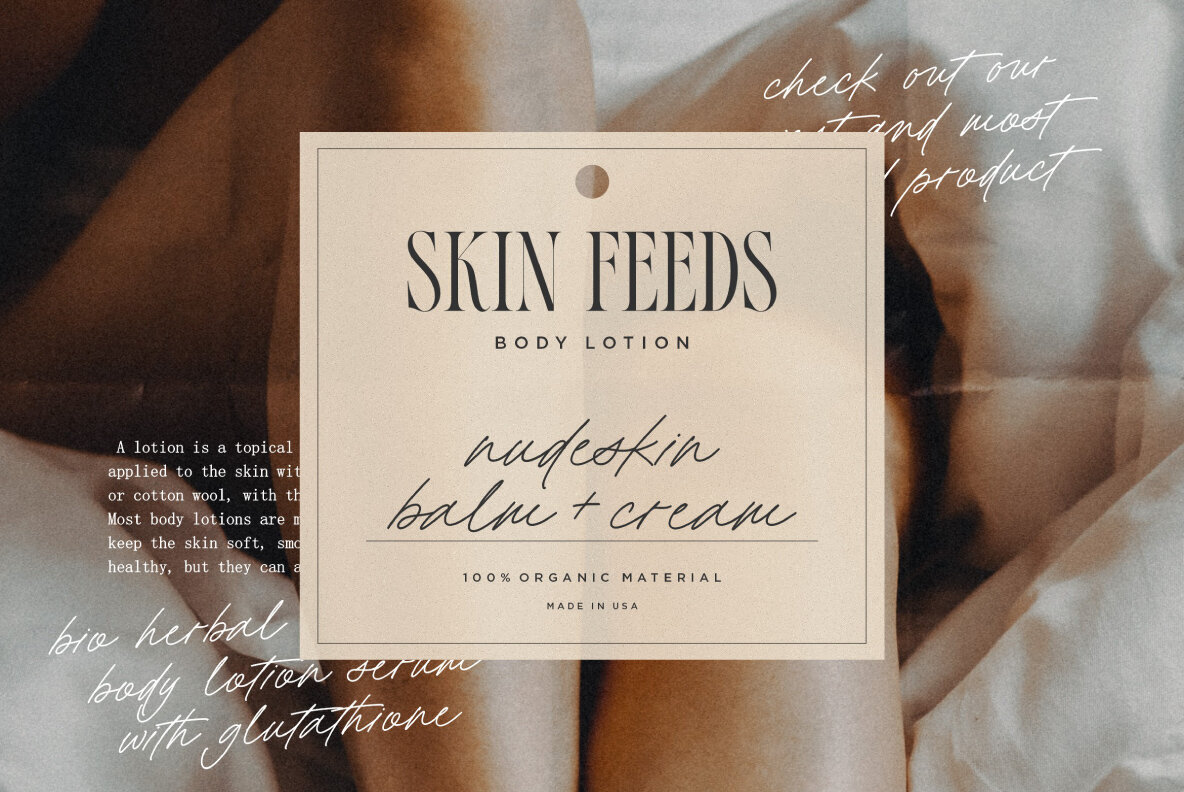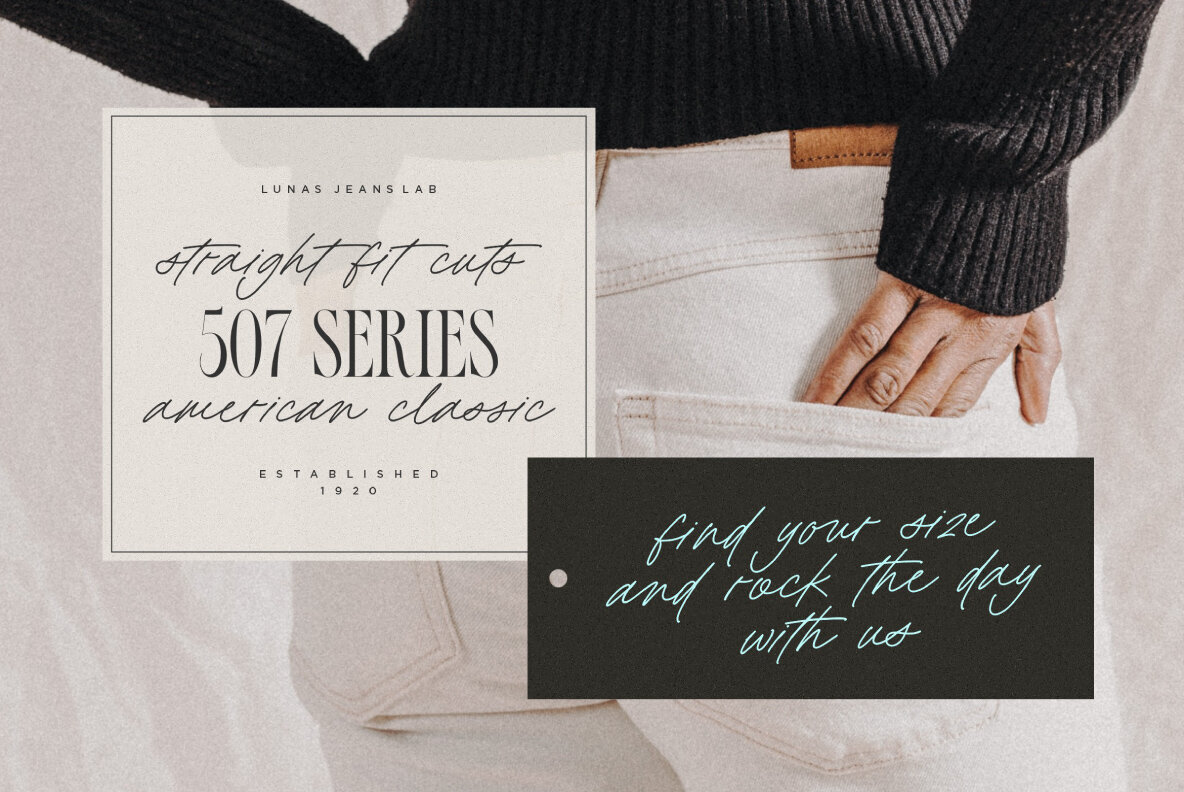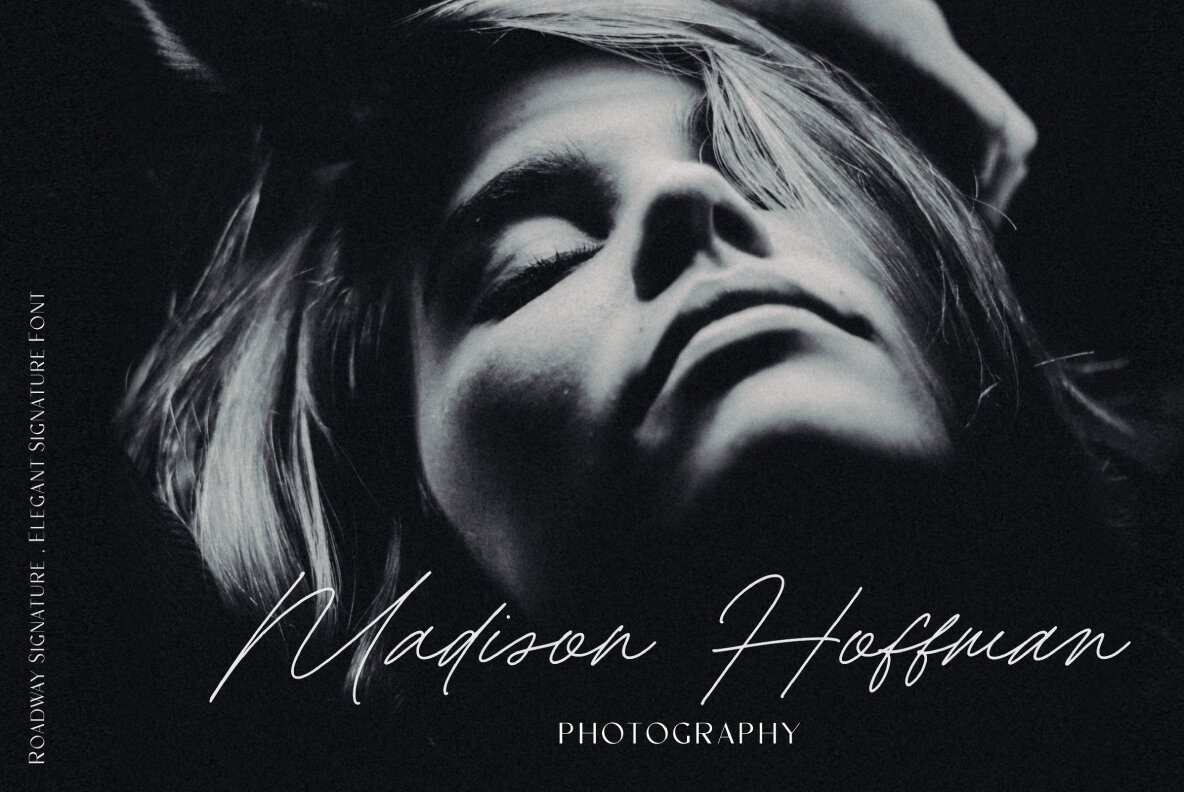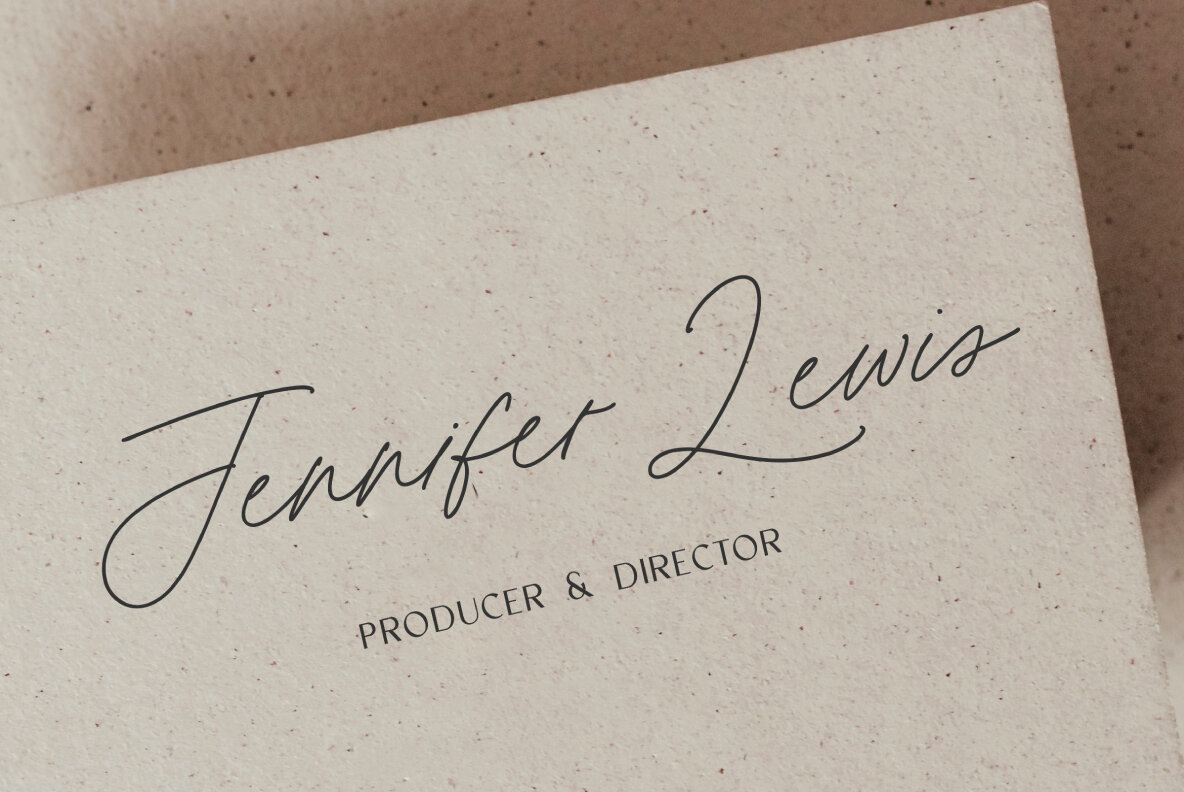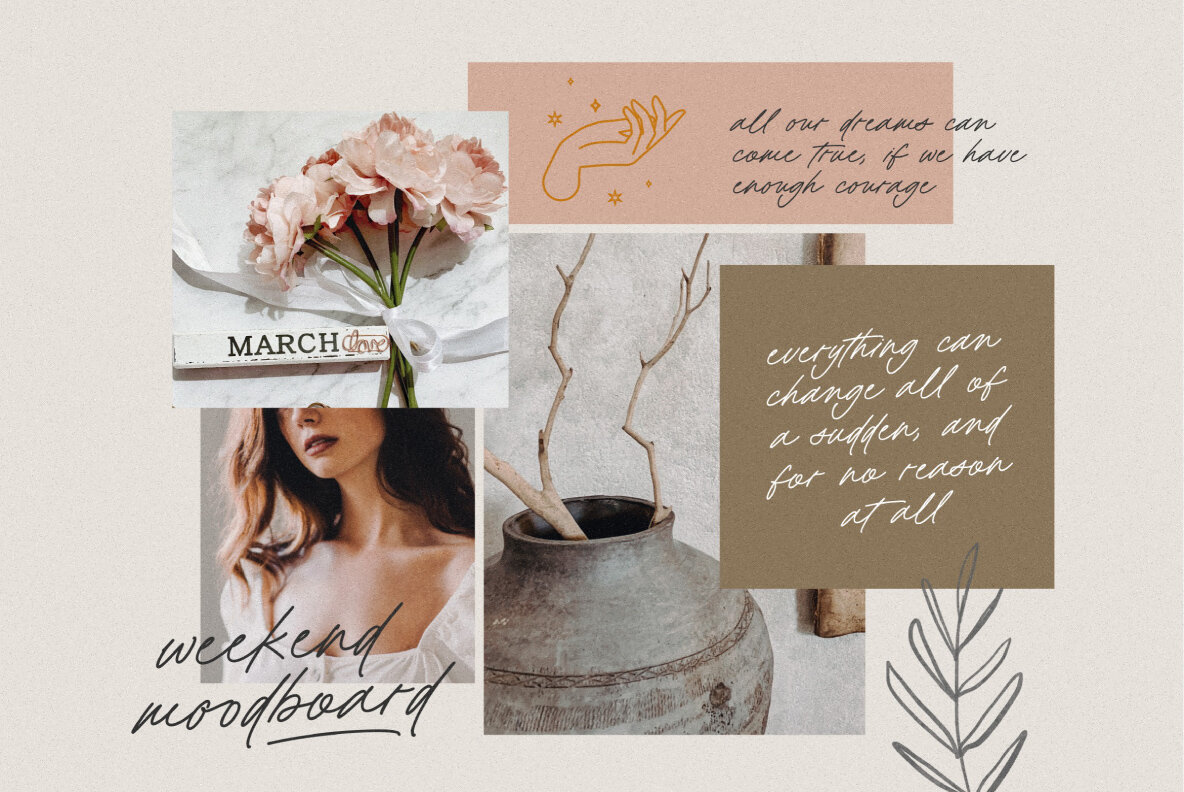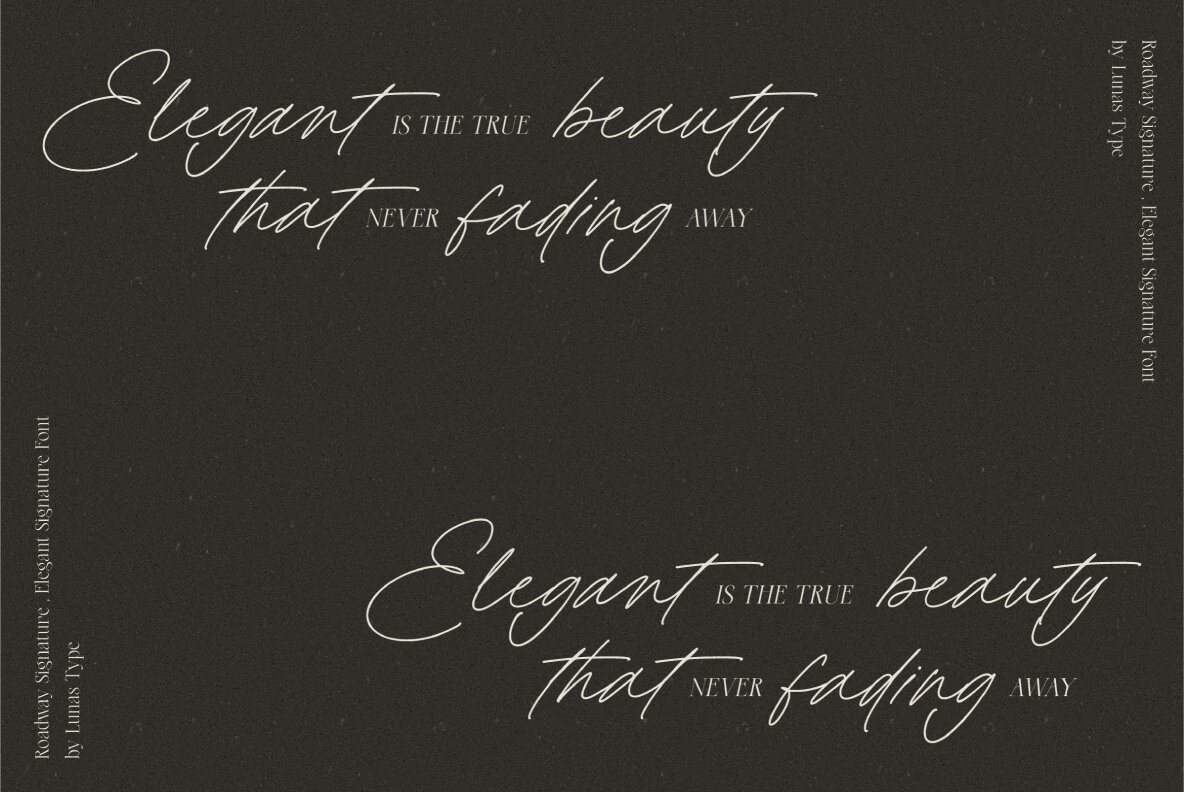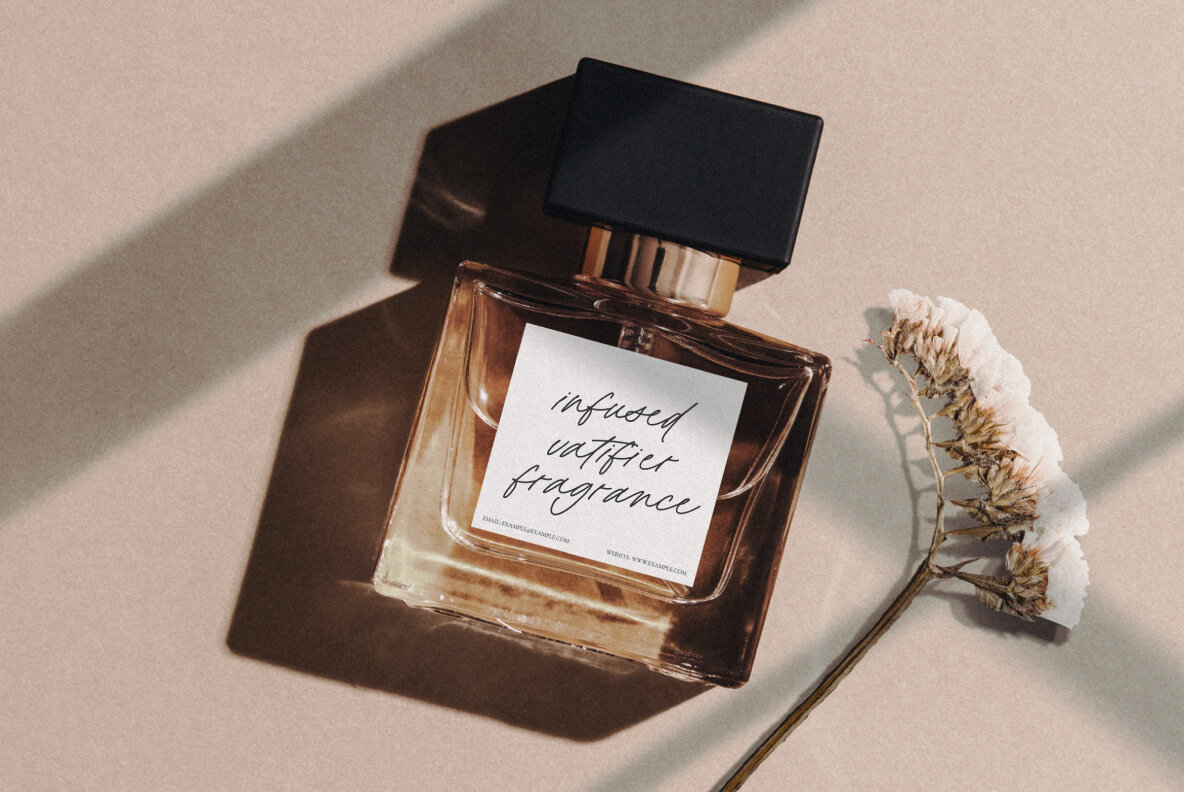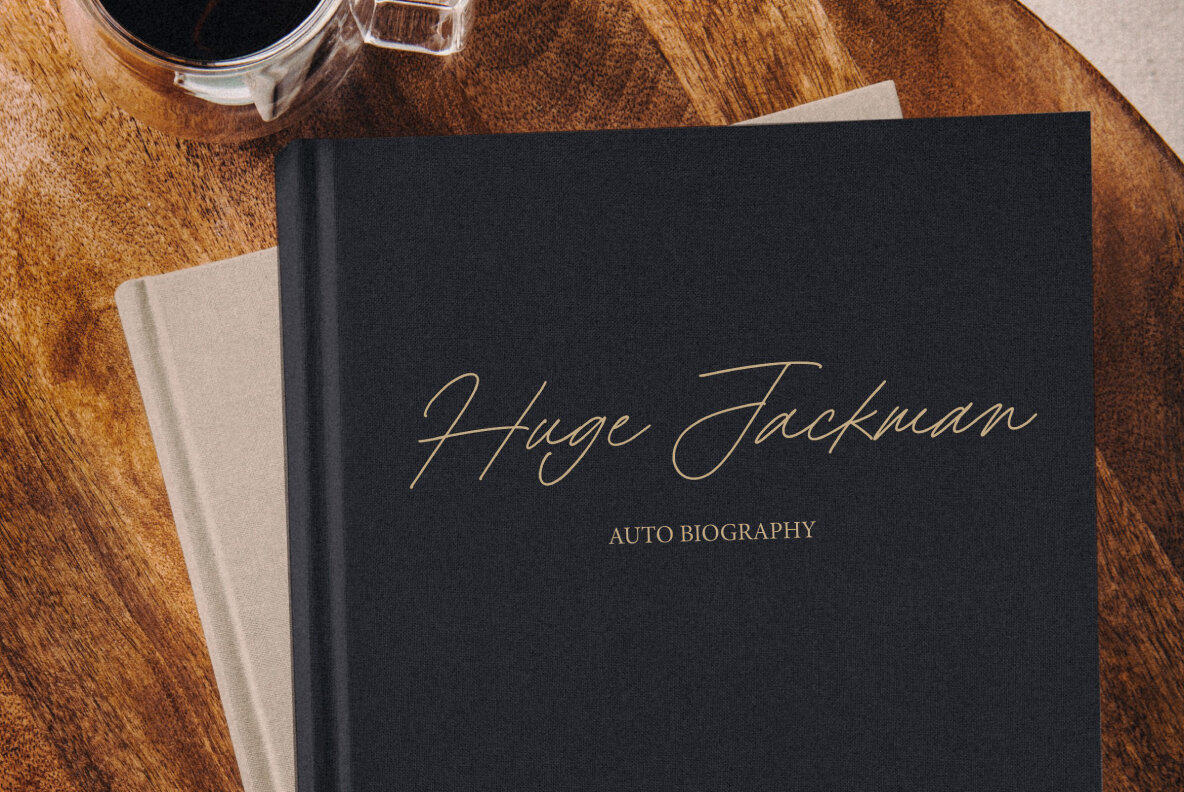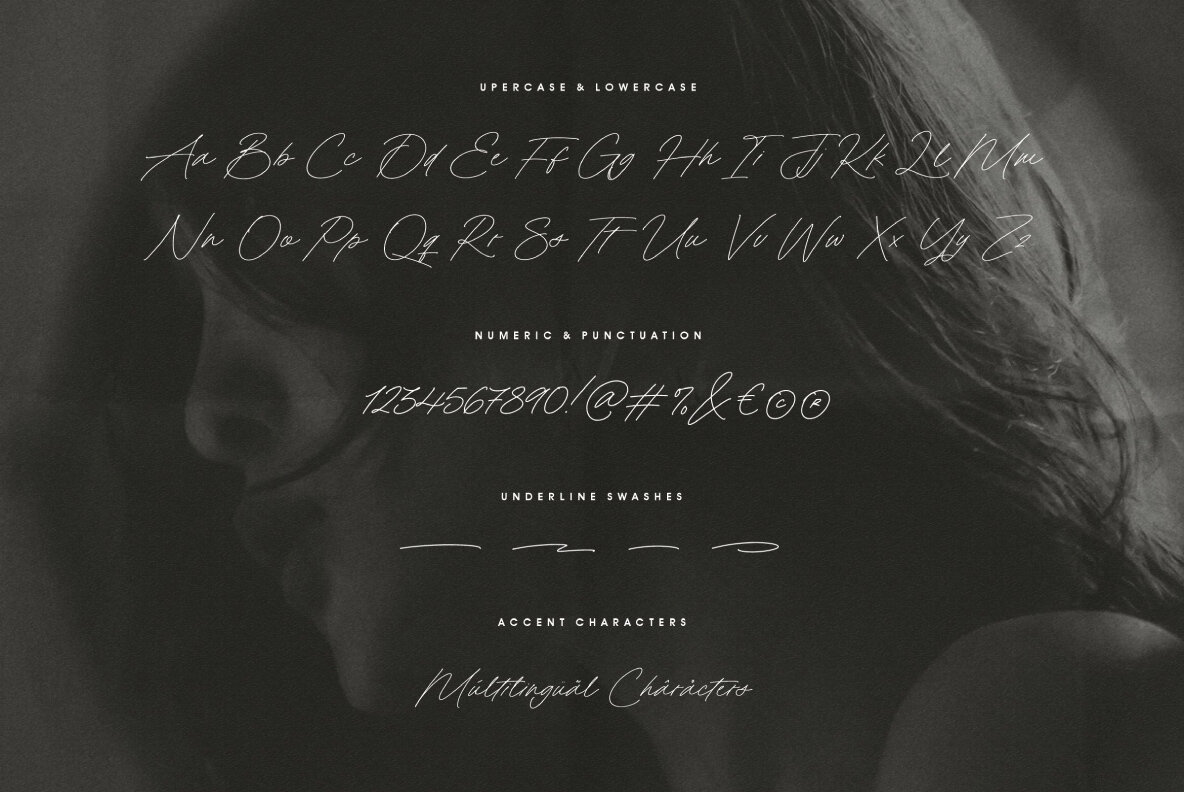
Roadway Signature Font
Roadway Signature Regular
Roadway Signature provides the perfect balance of elegance and modernity, making it an ideal choice for designers seeking a refined signature font. Each letter is crafted with a natural flow, offering a distinct personality to every project. Whether you're designing merchandise, T-shirts, logos, or crafting wedding invitations, Roadway Signature can connect all design elements seamlessly. Its versatility extends beyond print, perfect for digital realms like social media posts, websites, and special events.Roadway Signature: A Modern Touch for Diverse Creations